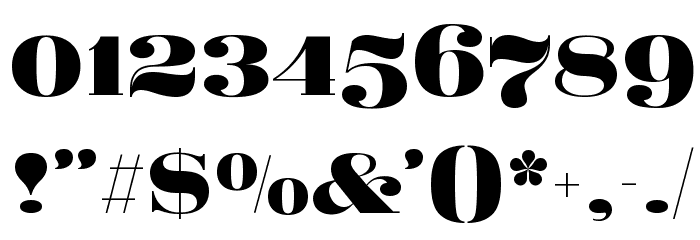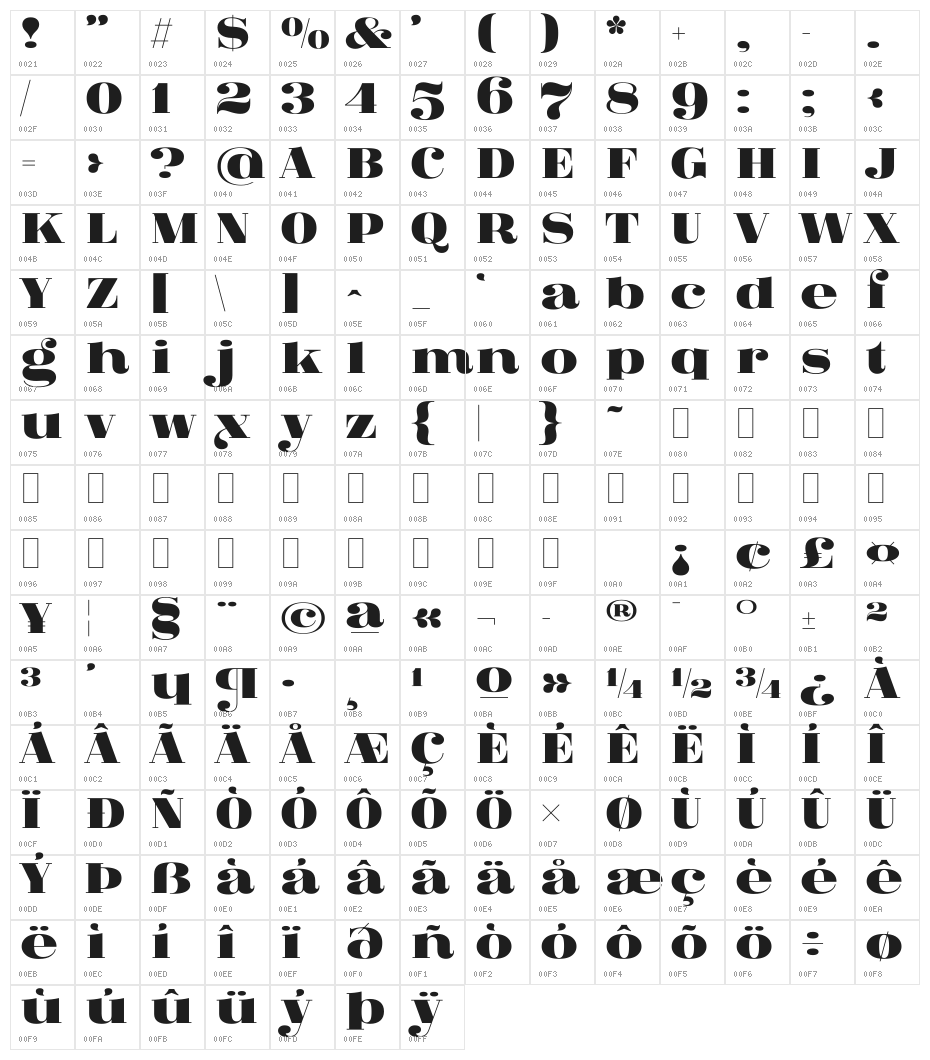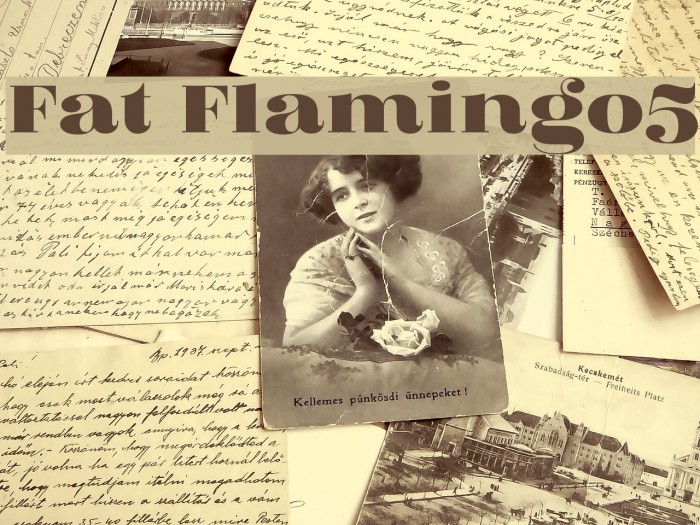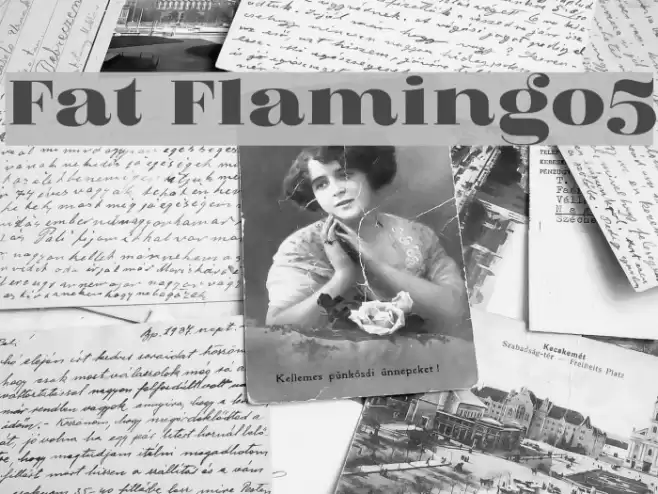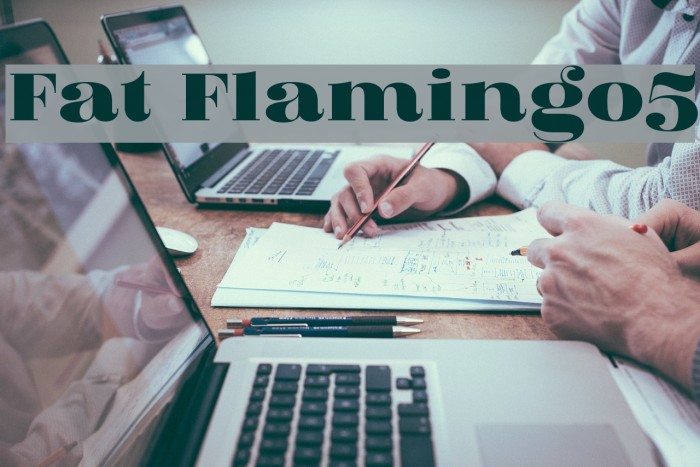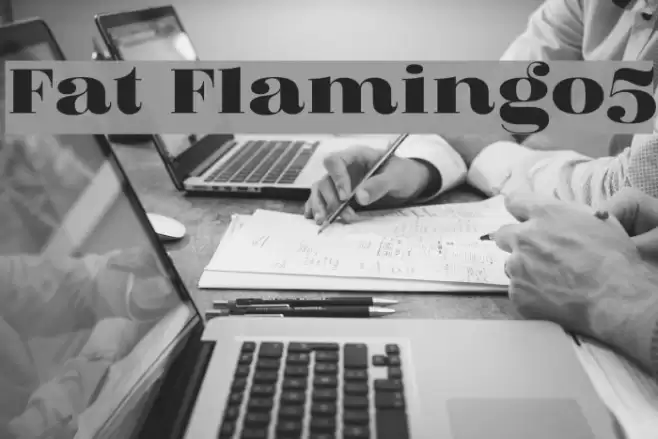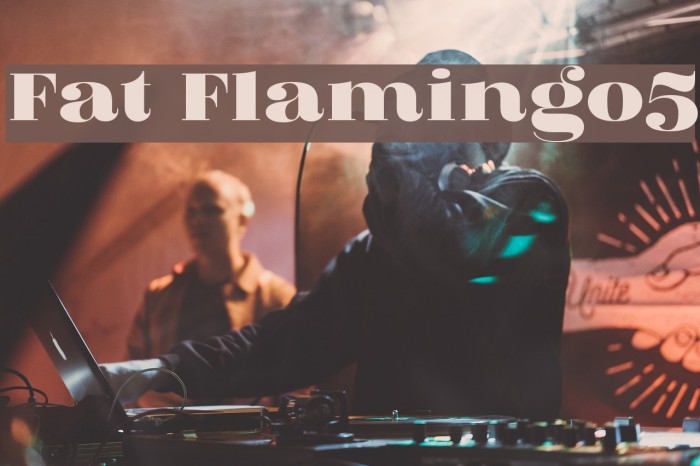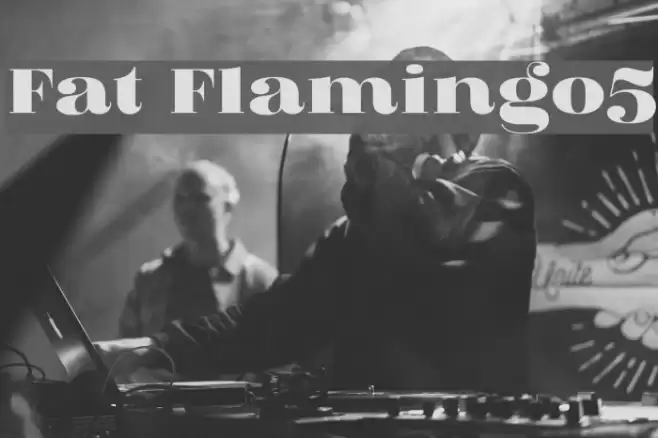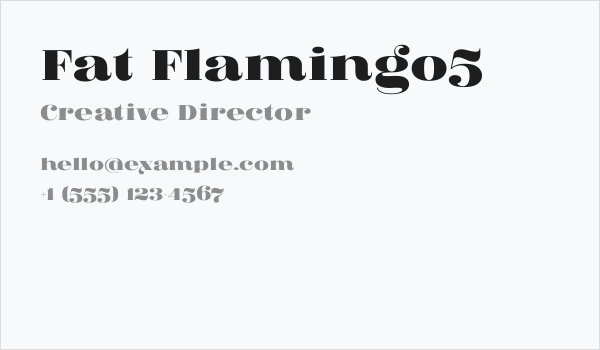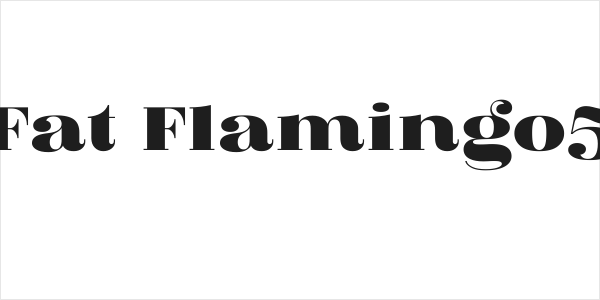
Fat Flamingo5 Font
Fat Flamingo5 Description
This font features a bold and striking design with thick, heavy strokes and high contrast between thick and thin lines. The serifs are pronounced, adding a touch of elegance and sophistication. The uppercase letters are particularly wide and commanding, while the lowercase letters maintain a consistent weight, contributing to a cohesive and balanced appearance. The numerals are equally bold, ensuring they stand out in any context. Special characters are designed with the same attention to detail, making them visually compatible with the rest of the font. This font is ideal for making a strong visual impact.
| Proposed Projects | Perfect for headlines, posters, branding, and any project requiring a strong visual impact. |